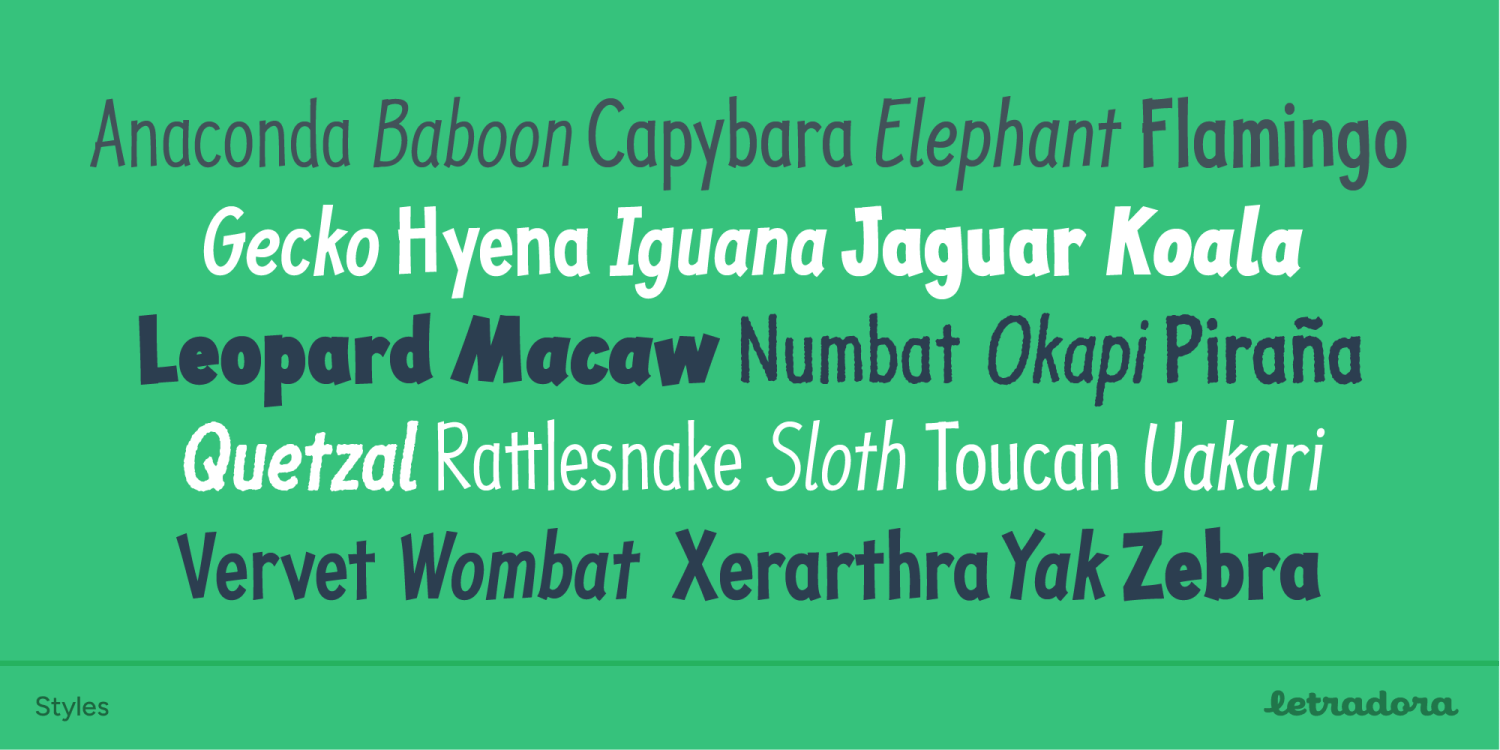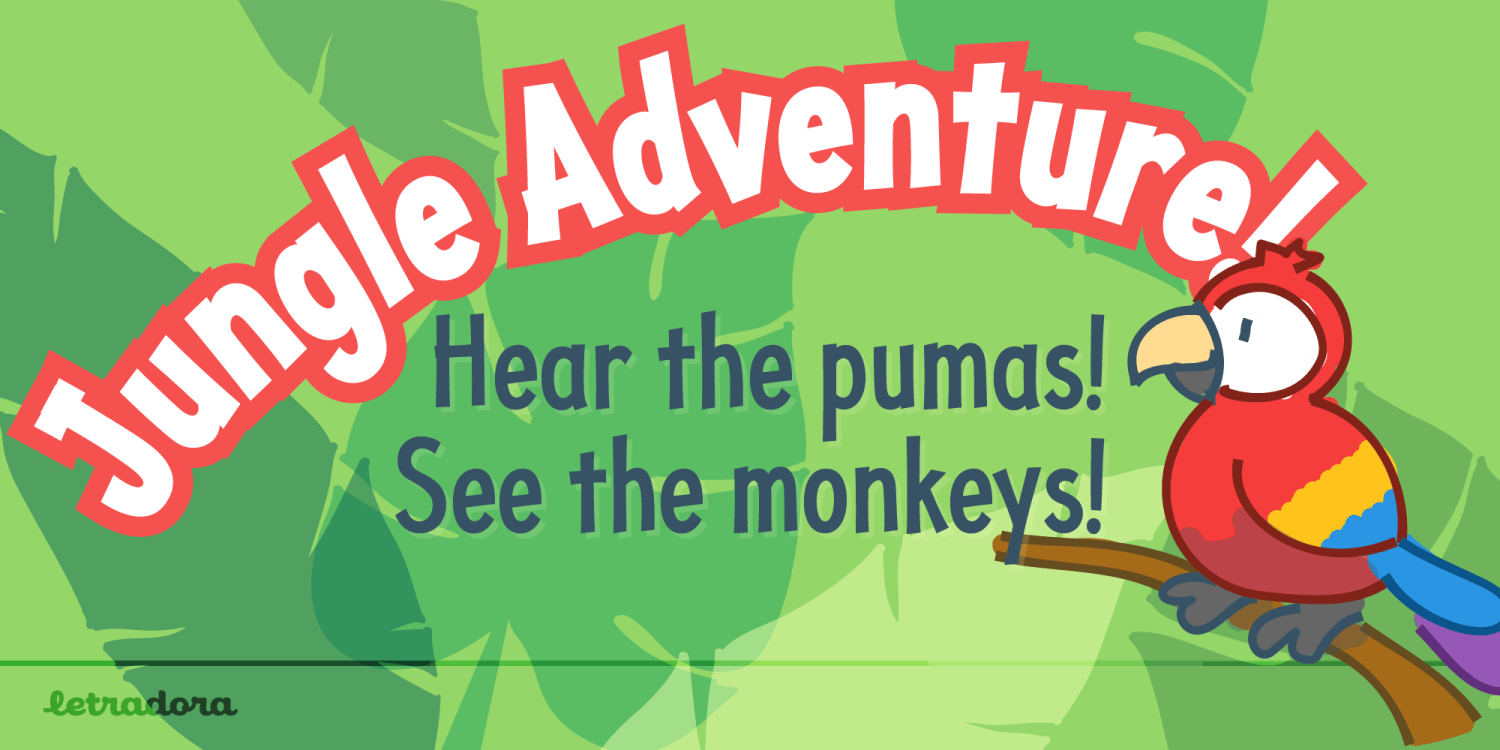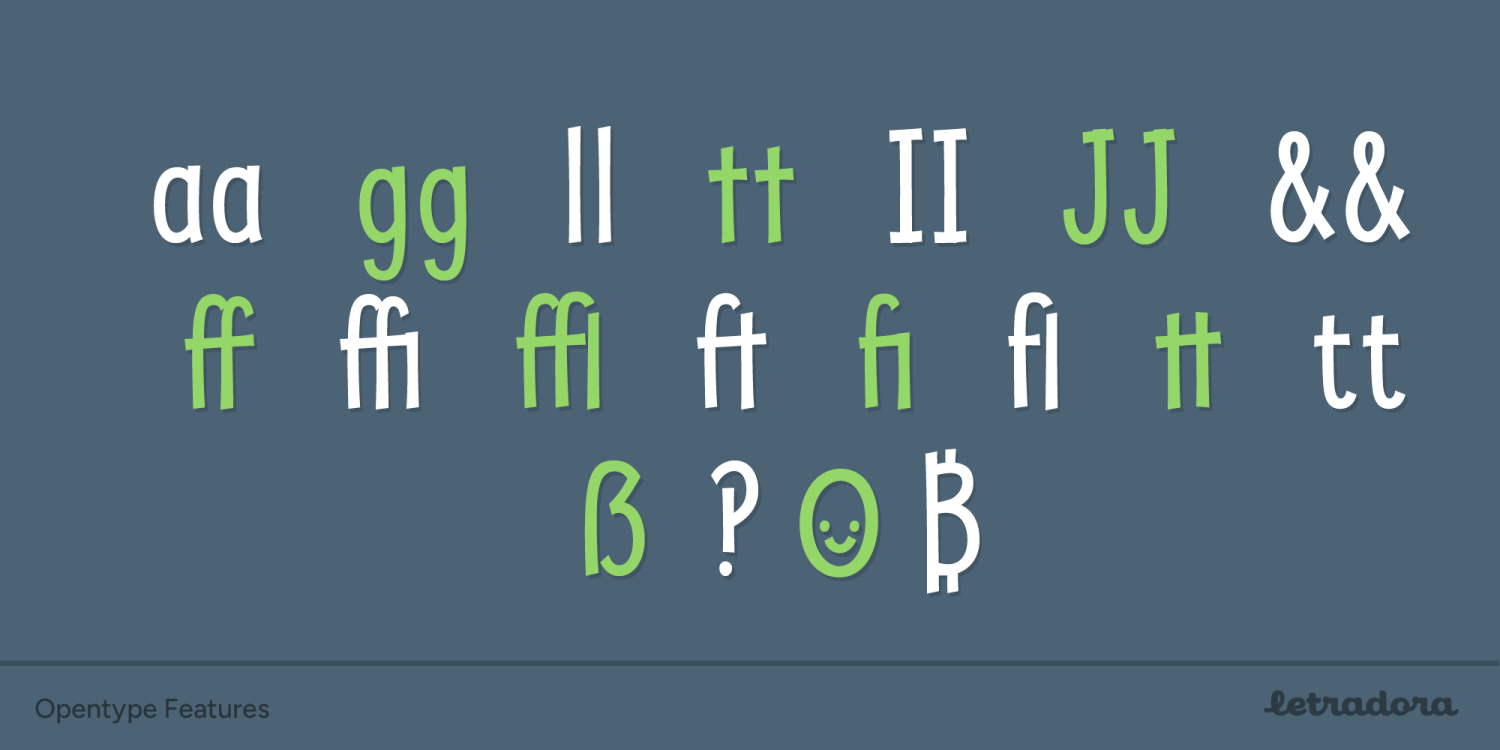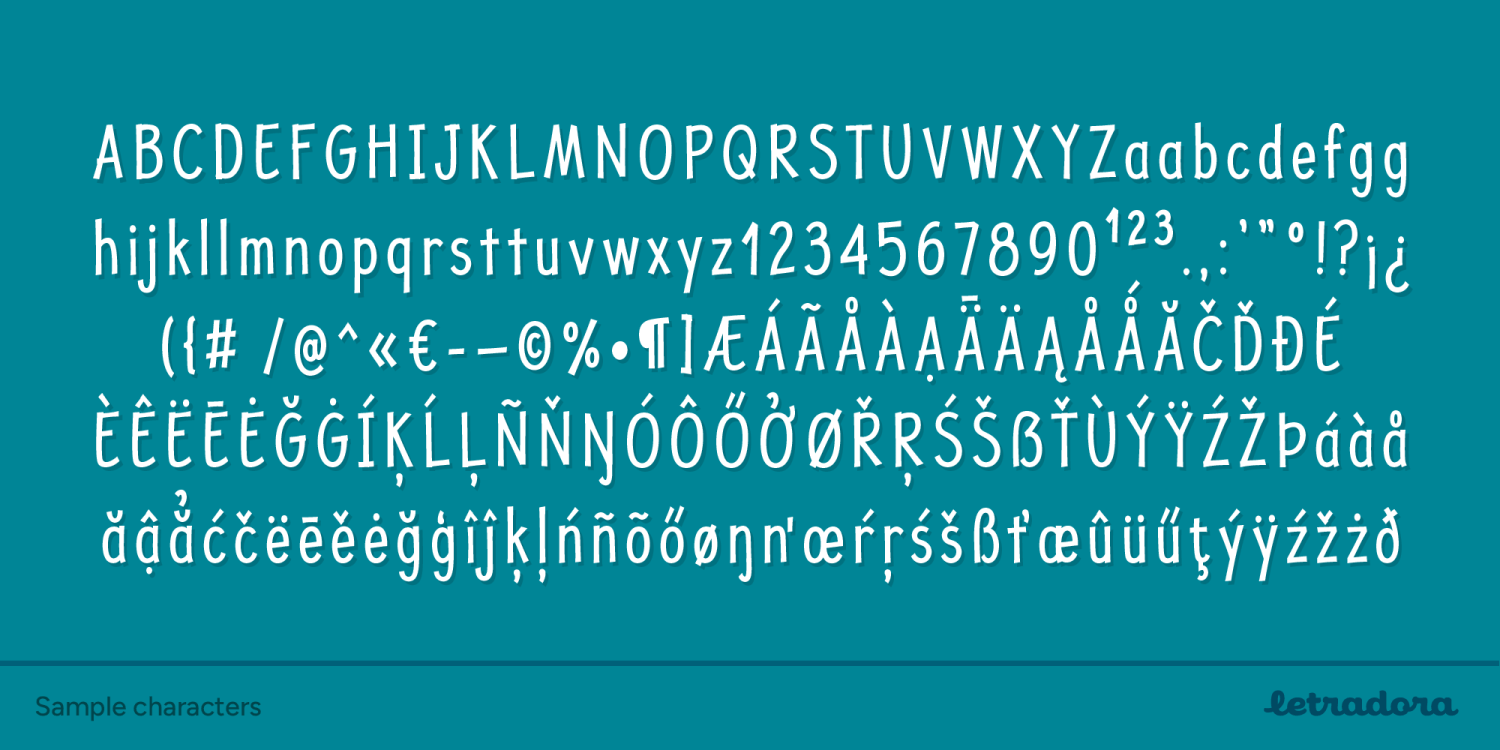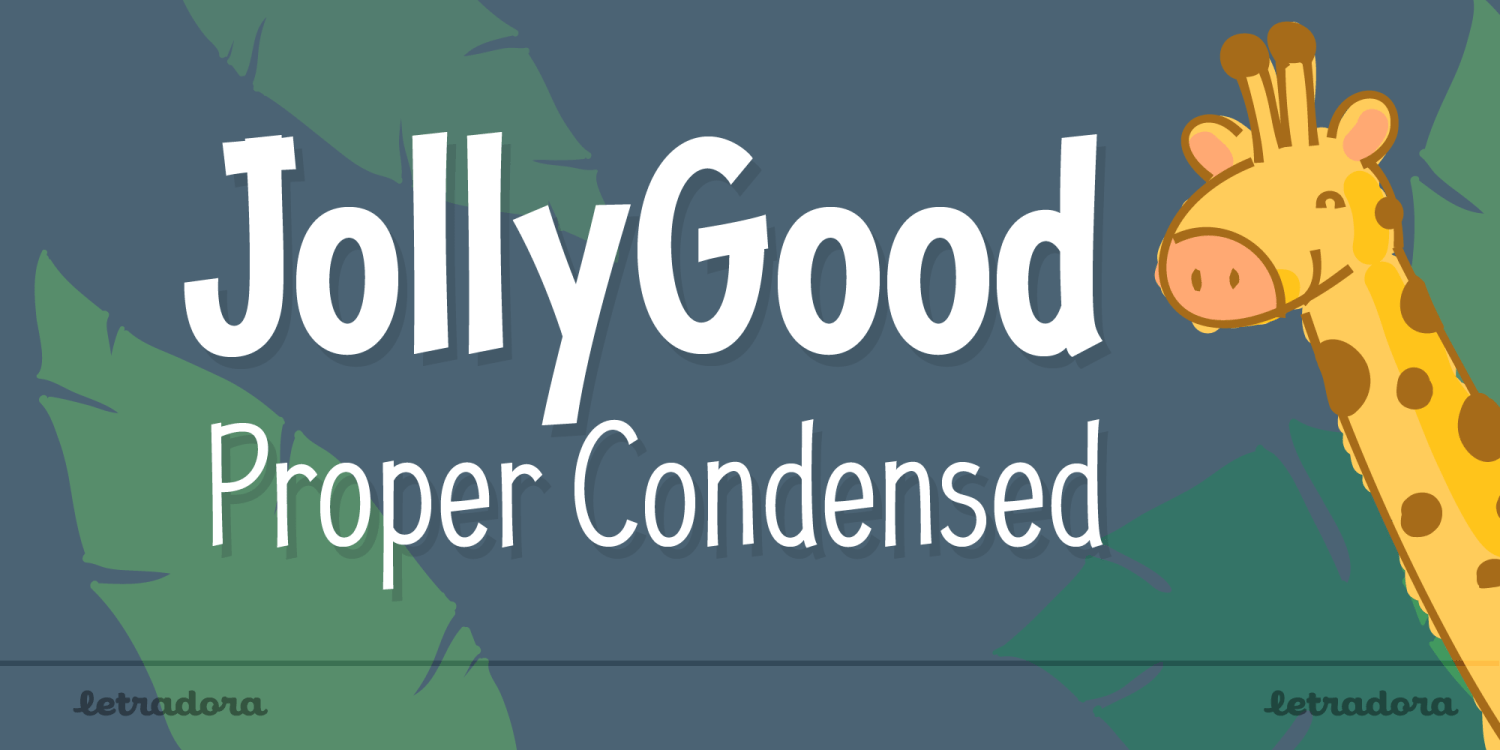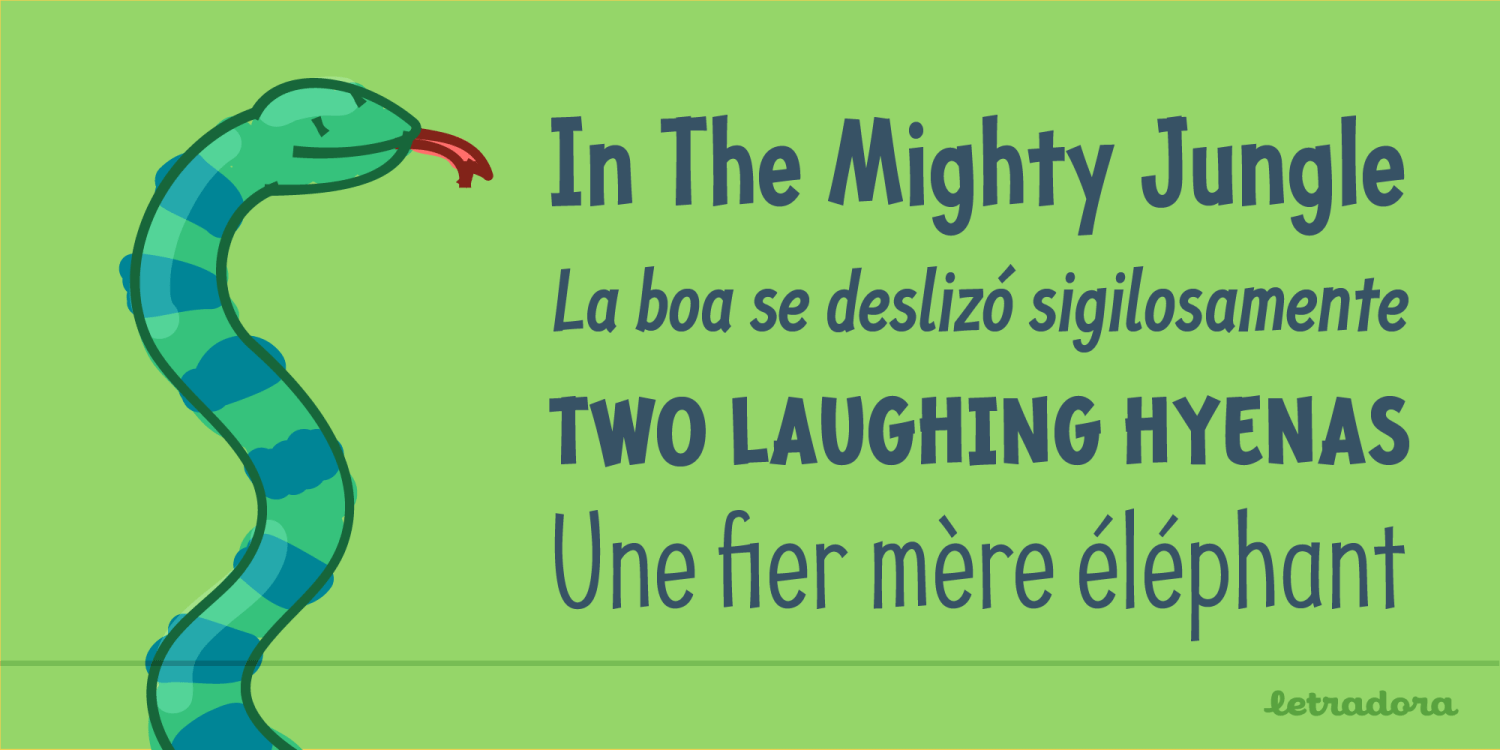
Jolly Good Proper Condensed
About Jolly Good Proper Condensed
JollyGood Proper Condensed is another member of the JollyGood family. It is an informal, hand-lettered font with a narrower weight so you can fit more text while still being fun & legible. It is a complete family with 4 weights in regular…